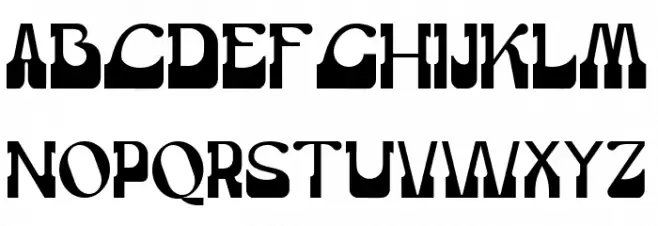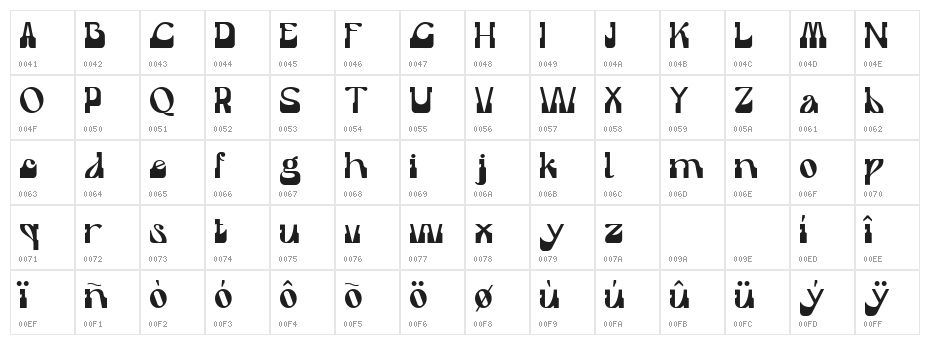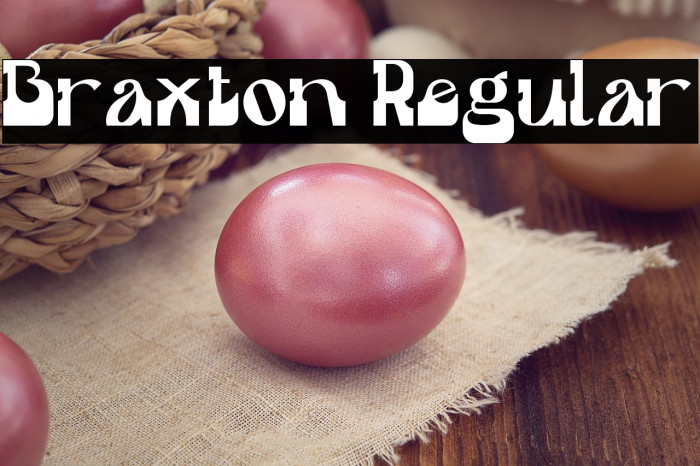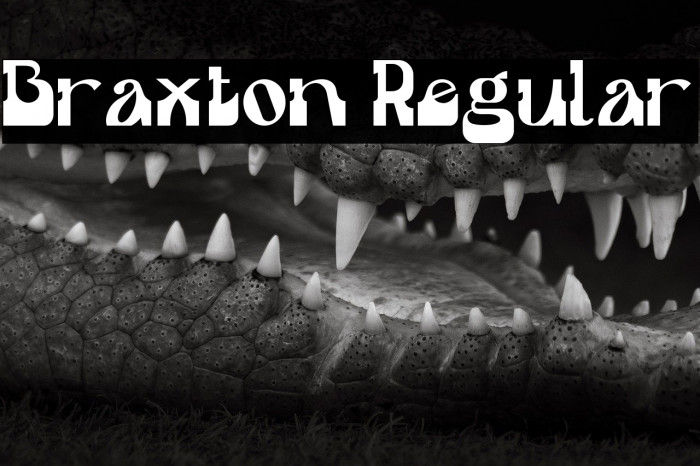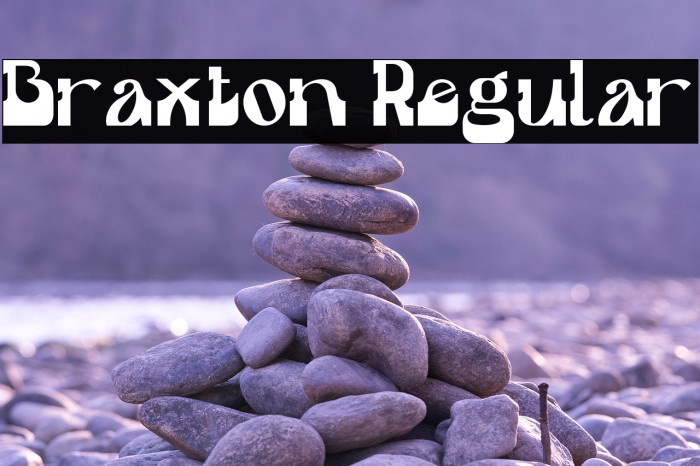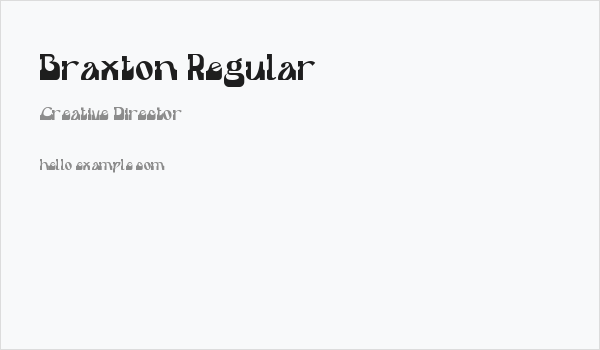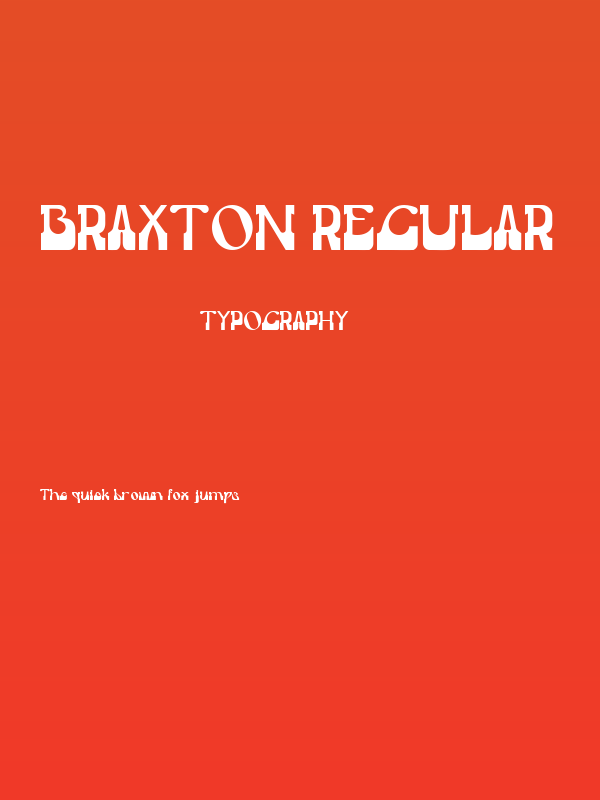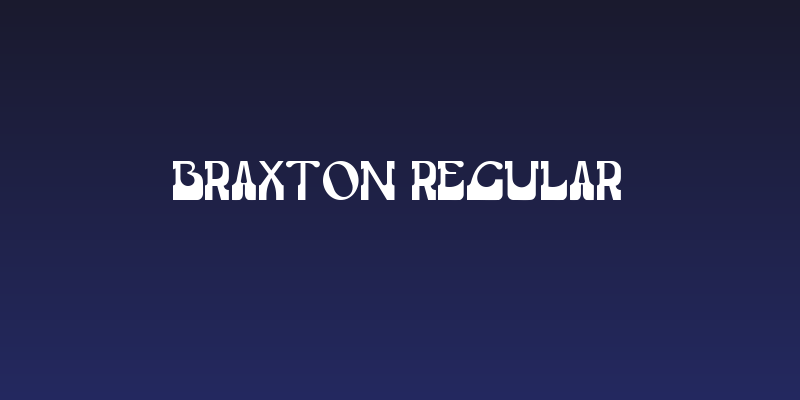
Braxton Regular Font
Braxton Regular Description
This font features a bold and striking design with a unique blend of geometric and organic shapes. The uppercase letters are characterized by thick, block-like forms with sharp angles and curves, creating a dynamic and eye-catching appearance. The lowercase letters maintain a similar style, with some characters featuring distinctive loops and swirls that add a touch of elegance. The numbers and special characters are consistent with the overall aesthetic, providing a cohesive look. This font's boldness and distinctiveness make it ideal for projects that require a strong visual impact.
| Proposed Projects | Ideal for branding, posters, headlines, and any design that requires a strong visual statement. |